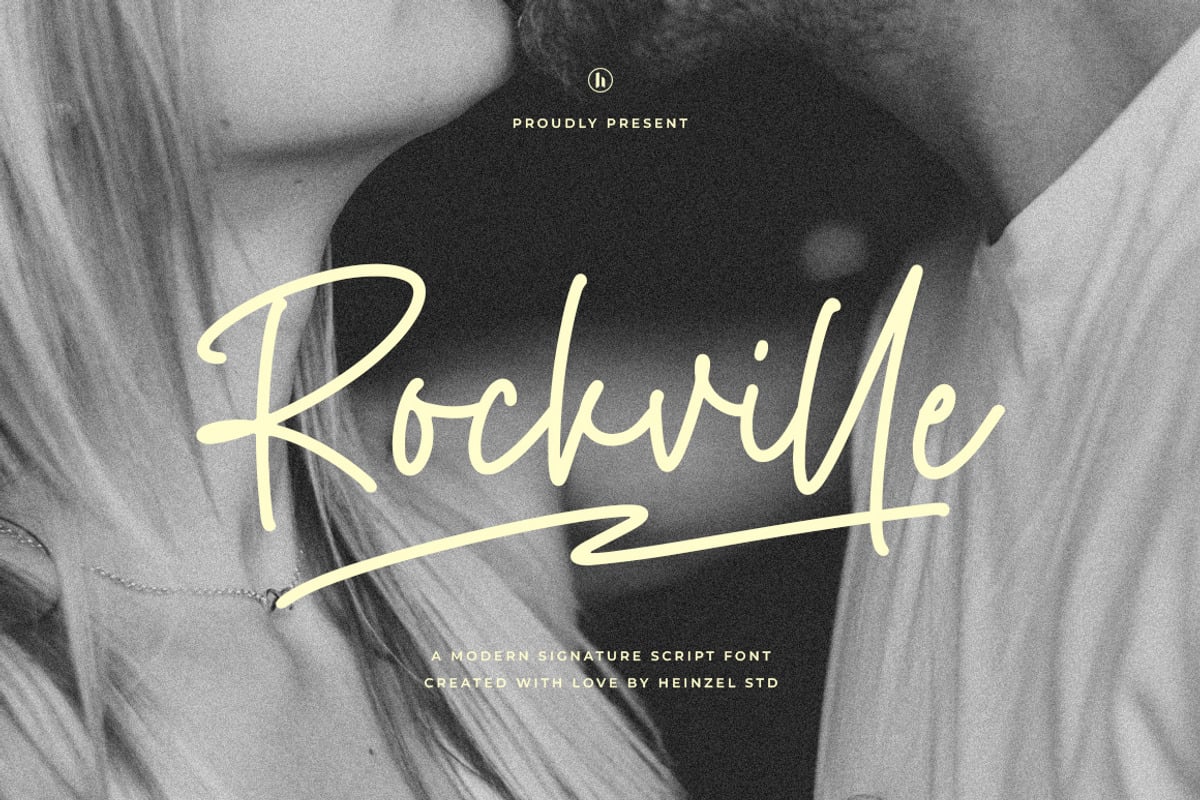
Rockville Modern Signature Font
Rockville is the signature script font that brings timeless elegance to every design it touches.
With its fluid, handwritten character and distinctly modern personality, Rockville is crafted for designers who want their work to feel authentic and refined. Its graceful letterforms make it a natural fit for wedding invitations, thank you cards, greeting cards, quotes, logos, and business cards — anywhere a genuine handwritten touch elevates the design.
Rockville Features:
- Uppercase and Lowercase characters
- Numerals and Punctuation
- Ligatures and Alternates
- Multilingual Language Support